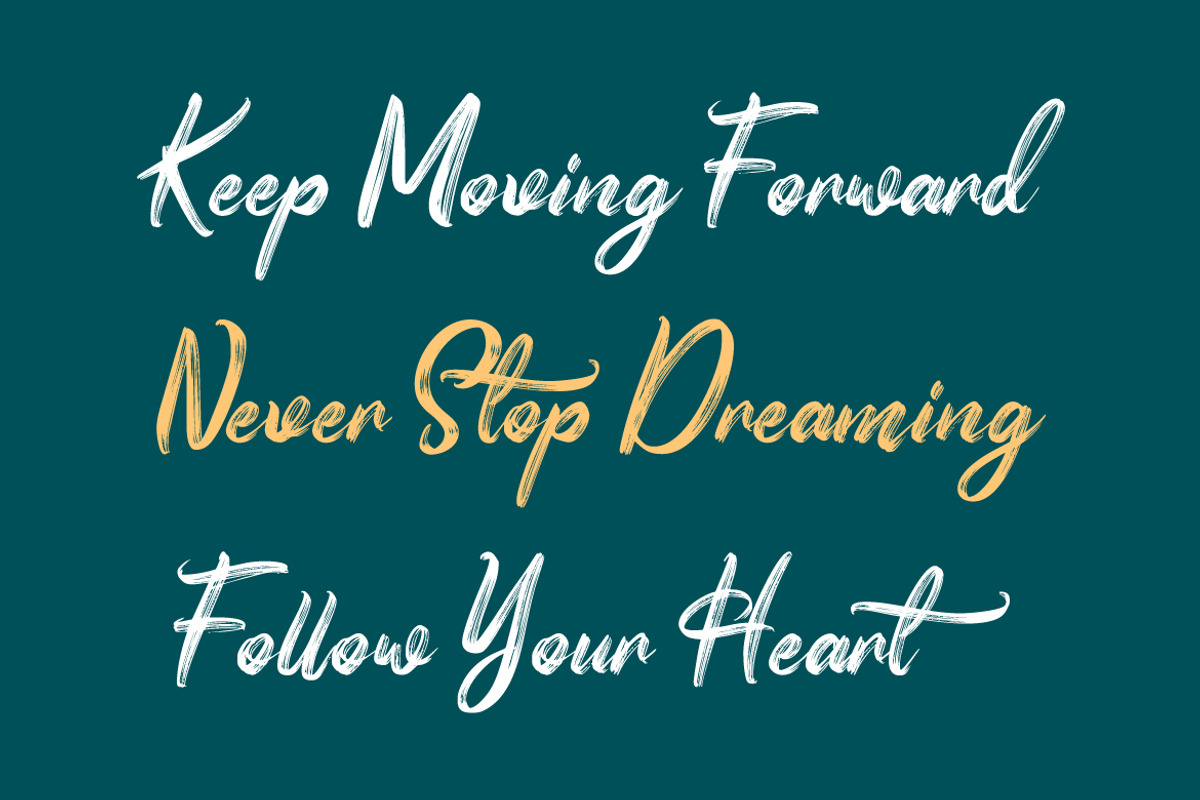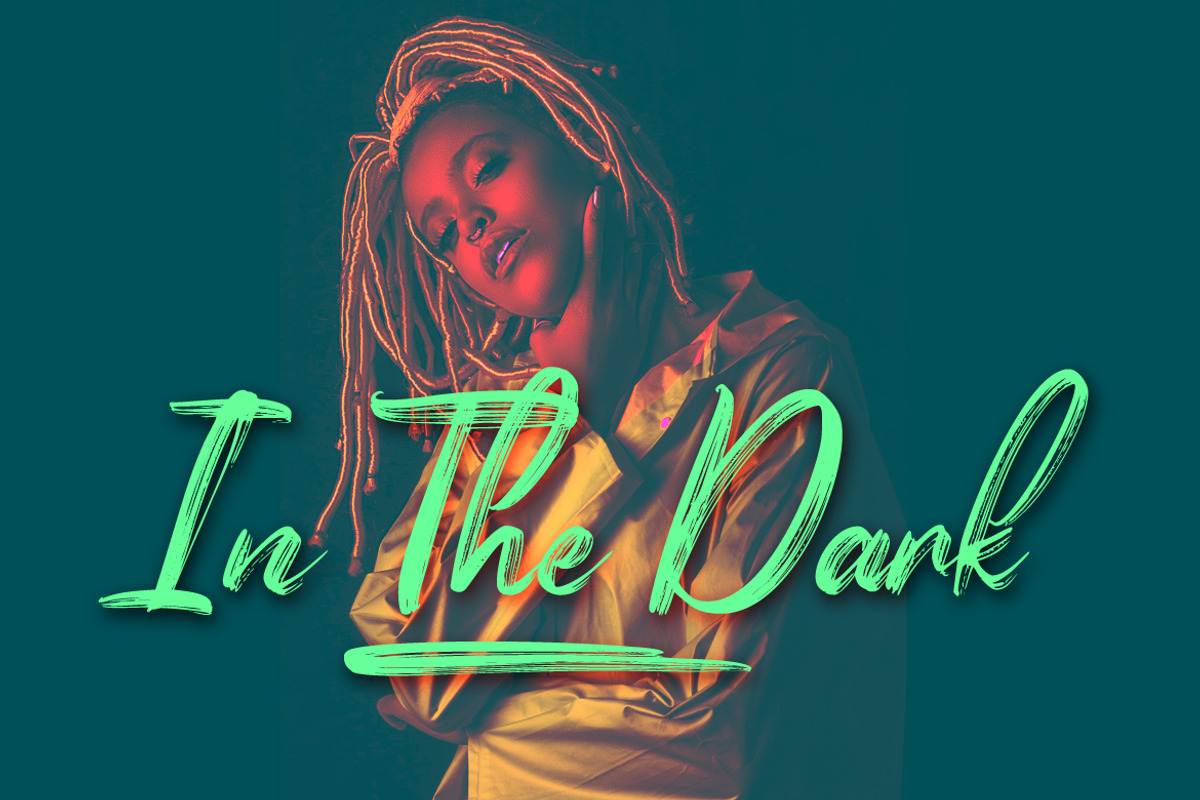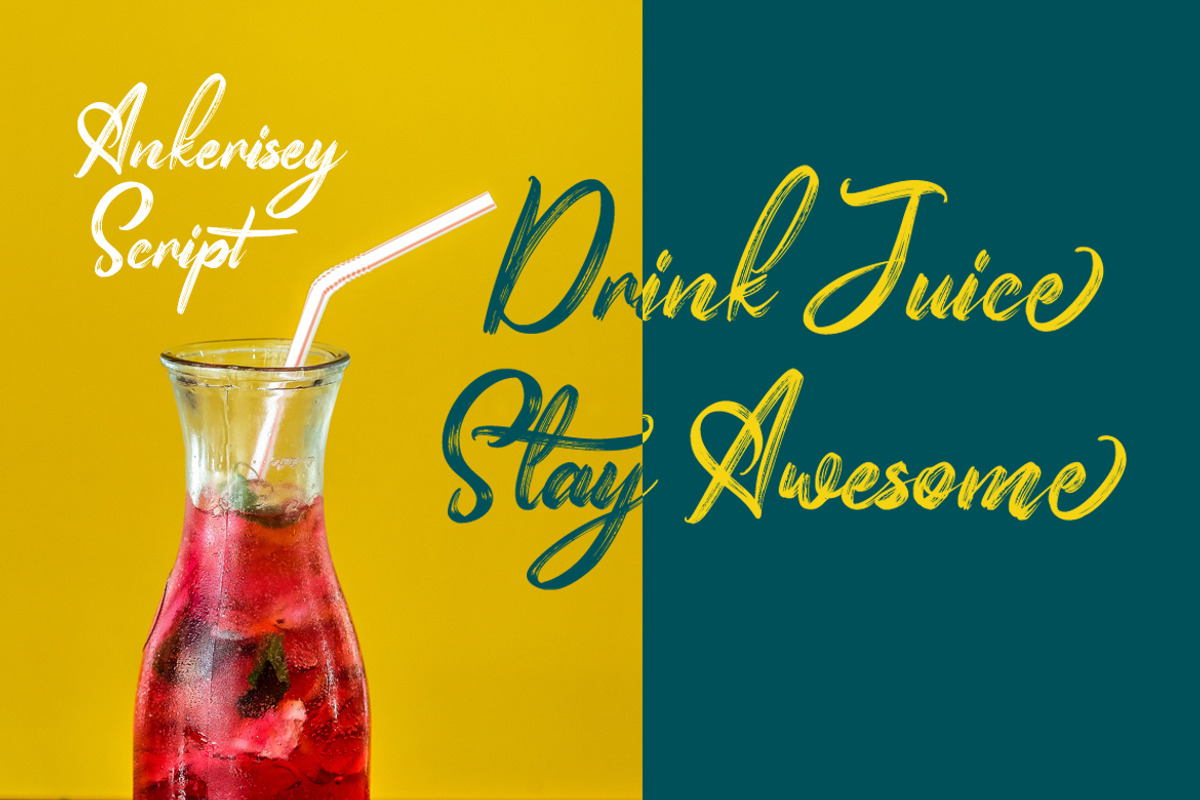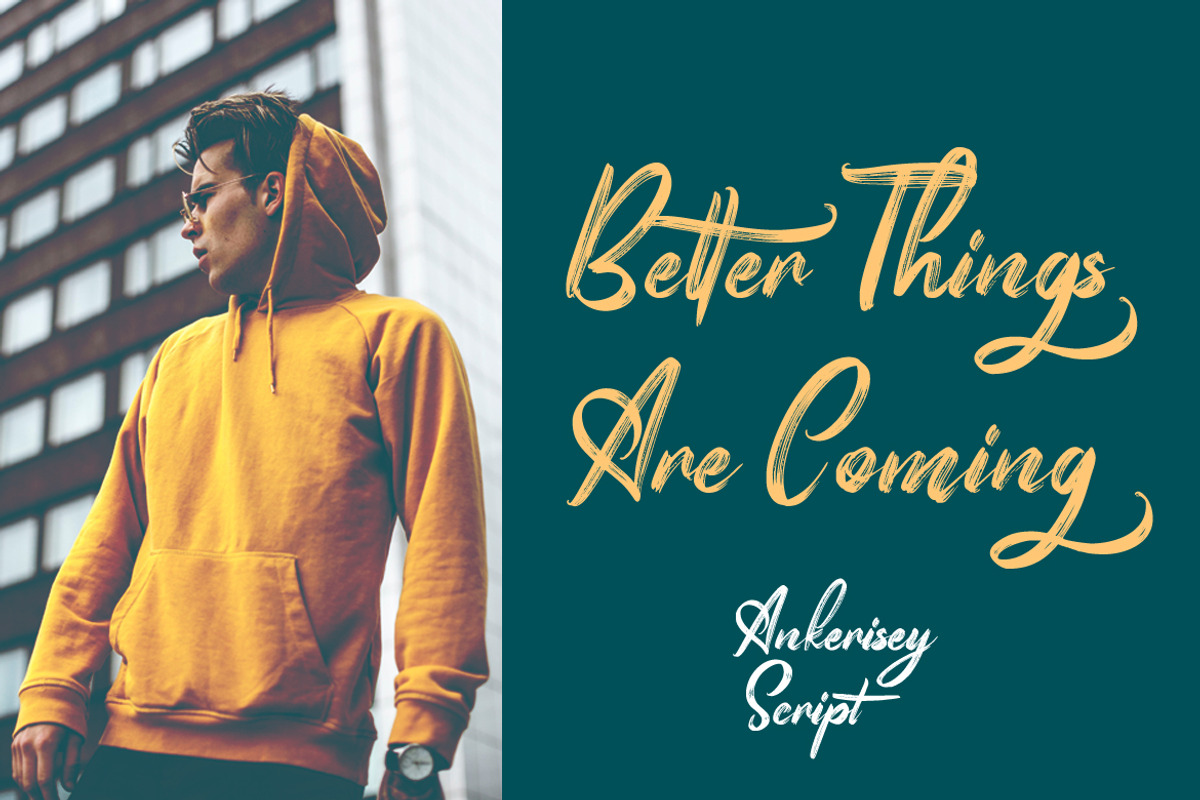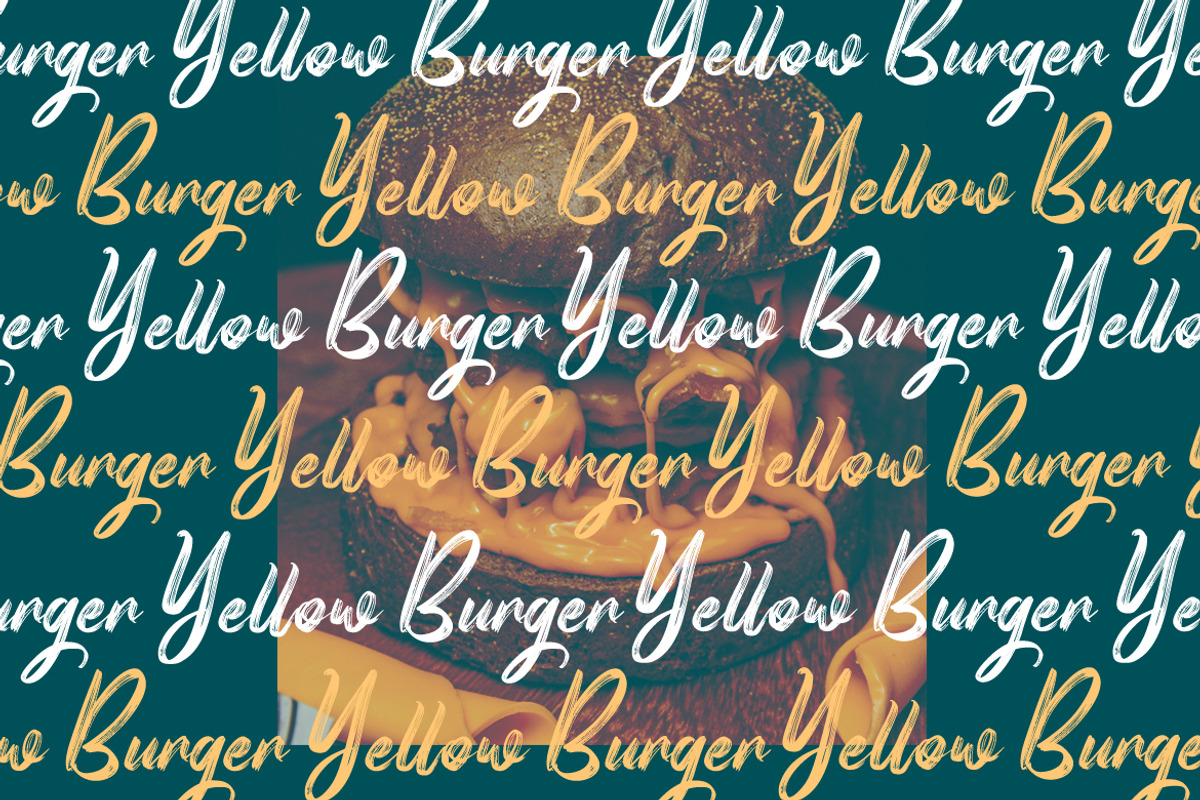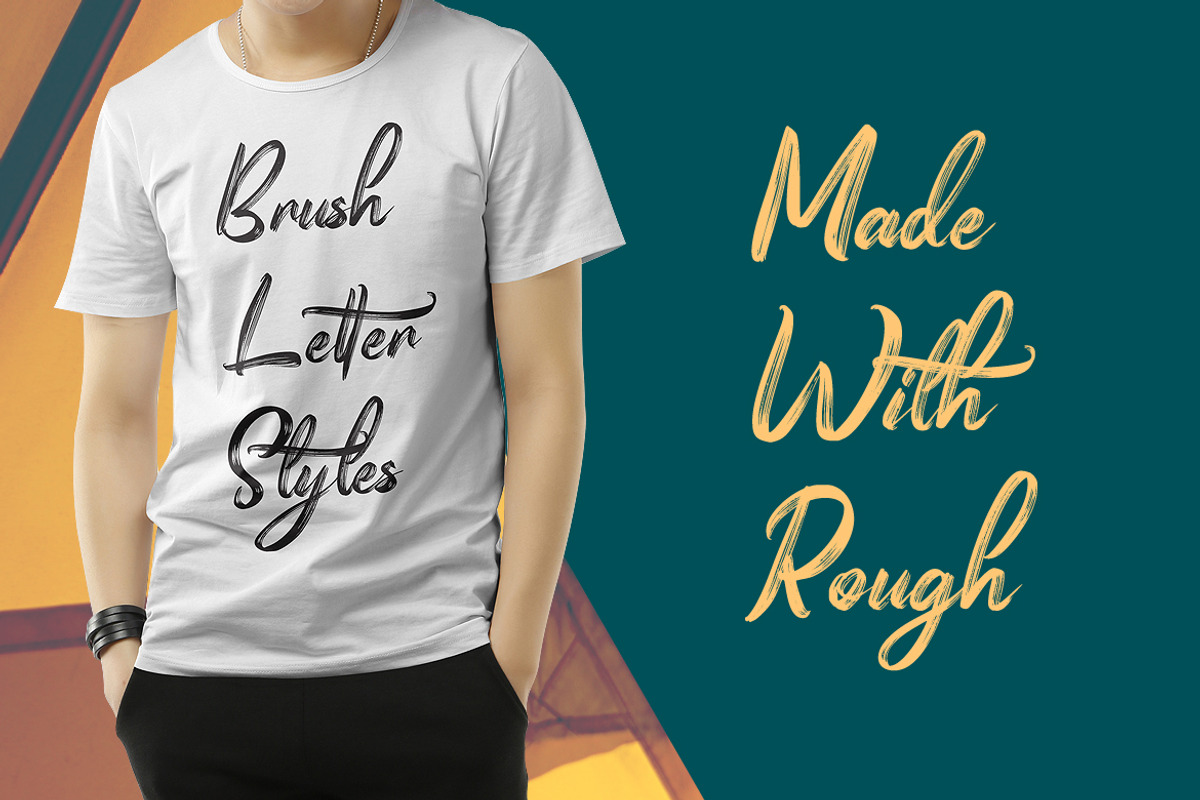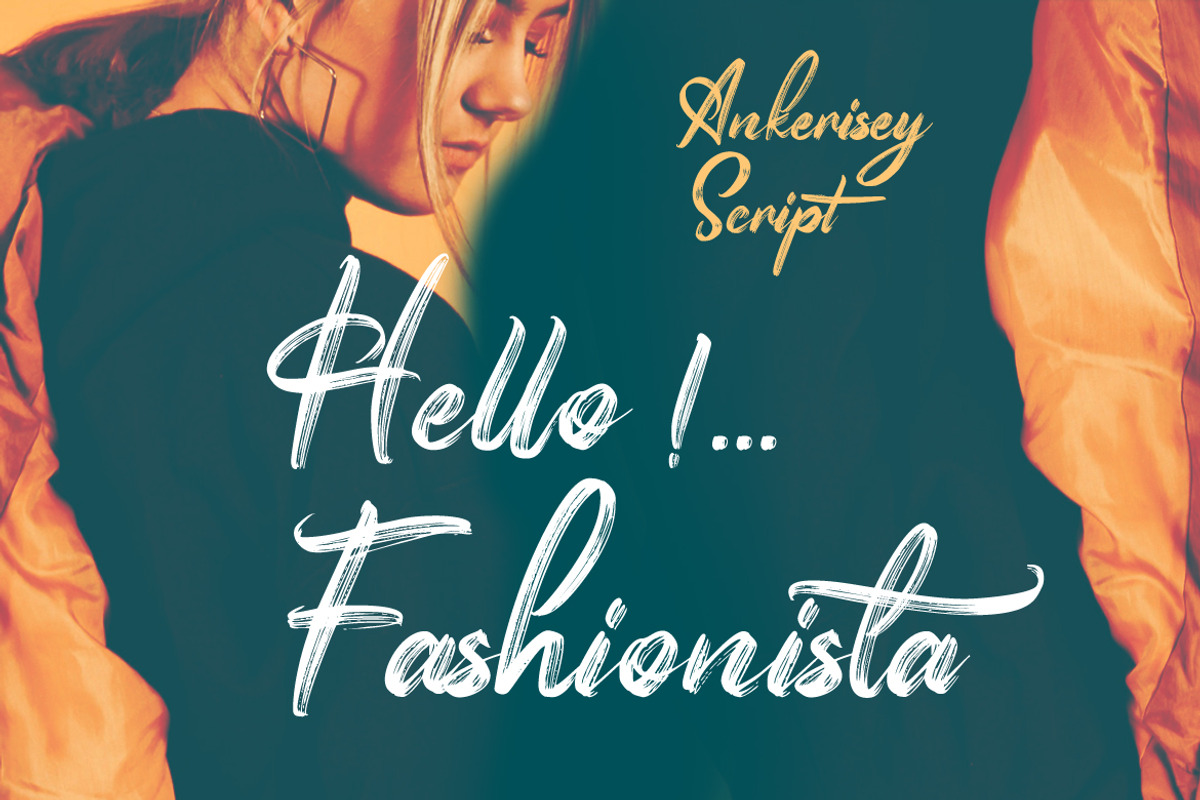
Ankerisey - Handwritten Font
Ankerisey is Script Font with Handlettering Dry Brush Style, with opentype feature include of the font. Suitable for design, element design, wedding, event, t-shirt, logo, badges, sticker, and awesome work, etc...
All Standard Character, Symbol, Multilanguage, Ligature, Stylistic Set, and Swashes.